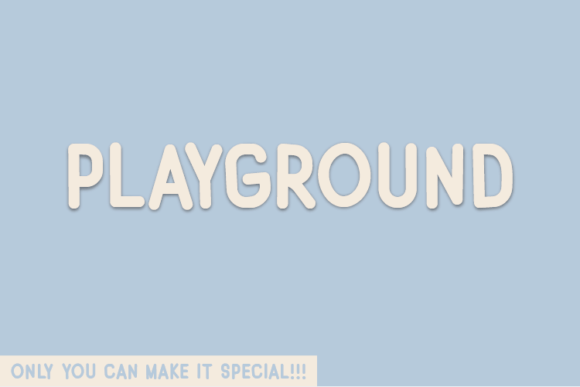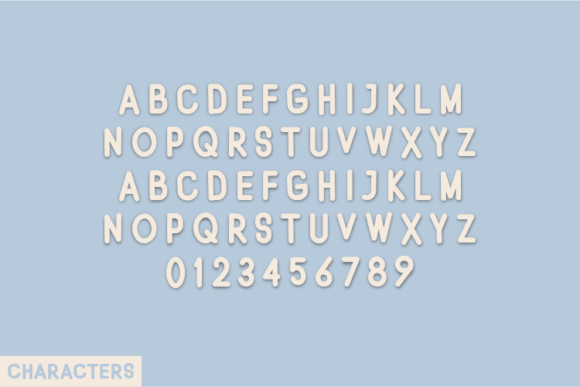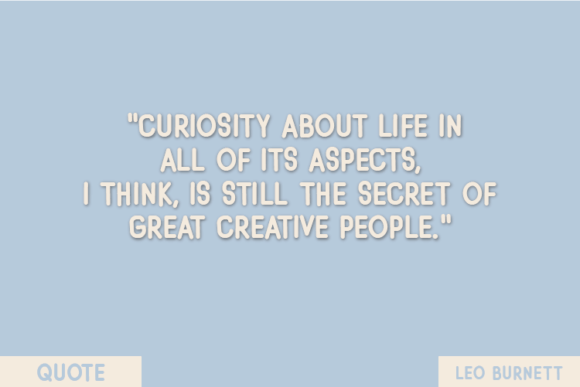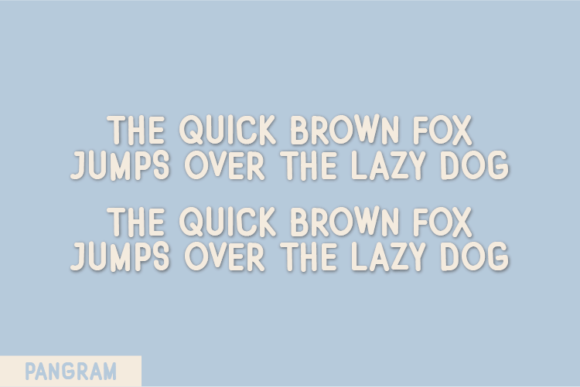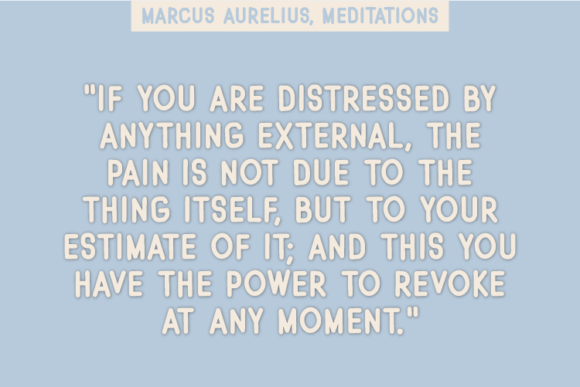
About Playground
Playground is a natural handwritten font made without changing a single node in each character’s indentation – this makes this font very interesting and unique. Perfect for quotes, notes, tees, and any product design.